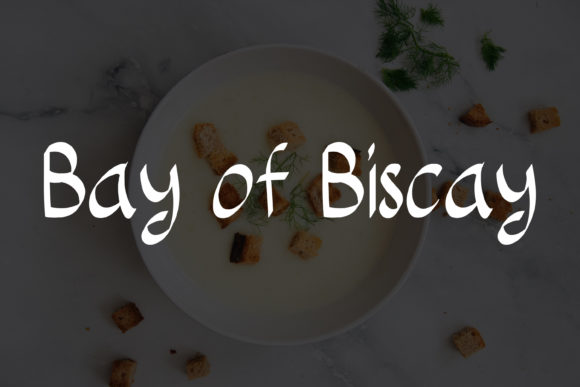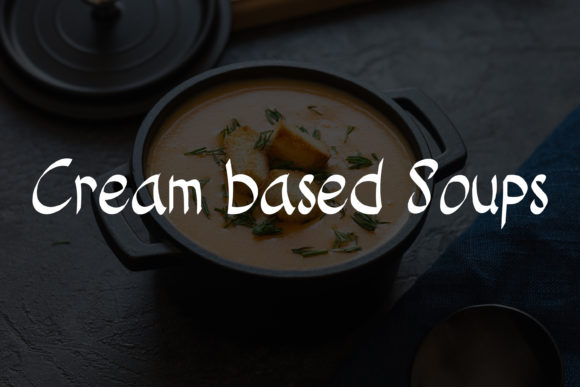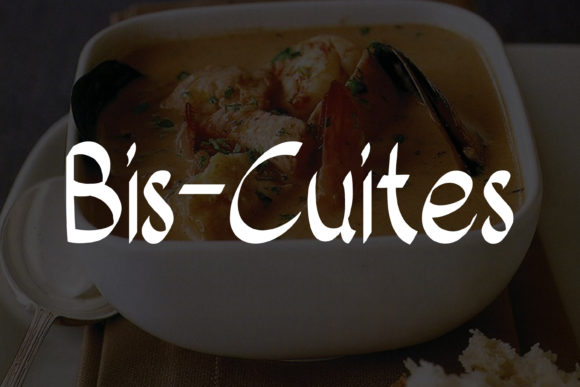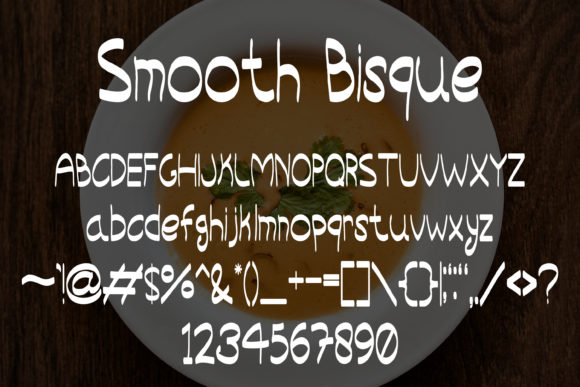
About Smooth Bisque Font
Introducing Smooth Bisque, a sweet and friendly handwritten font that exudes a natural and unique style. With its charming and approachable vibe, this font is a versatile choice for a wide range of design projects. Let your imagination run wild and explore the endless possibilities that Smooth Bisque brings to the table.
Smooth Bisque is crafted with care, featuring smooth and flowing letterforms that give your text a warm and inviting feel. Every character has its own personality, adding a touch of personality and authenticity to your designs. Whether you’re creating greeting cards, logos, invitations, social media graphics, or any other creative project, Smooth Bisque will add a delightful touch.
The natural and unique style of Smooth Bisque allows it to seamlessly fit into various design themes and aesthetics. Its versatility makes it suitable for children’s designs, crafts, DIY projects, branding, and much more. The font’s friendly and approachable nature creates a connection with your audience and makes your designs stand out.
One of the best things about Smooth Bisque is that it gives you the freedom to explore and experiment. Let your creativity flow as you mix and match the characters, play with different letter combinations, and discover new ways to express your ideas. The font’s natural and unique style gives you the opportunity to create truly original designs that leave a lasting impression.
Smooth Bisque is designed to be user-friendly, allowing you to easily access all of its glyphs and swashes. This gives you the flexibility to customize and personalize your designs, adding even more charm and character. Whether you’re embellishing your text with decorative swashes or adding a unique flourish to your project, Smooth Bisque has you covered.
So, let Smooth Bisque be your go-to font for projects that require a sweet and friendly touch. With its natural and unique style, the possibilities are endless. Explore the charm and versatility of Smooth Bisque and let your designs come alive with its delightful presence.